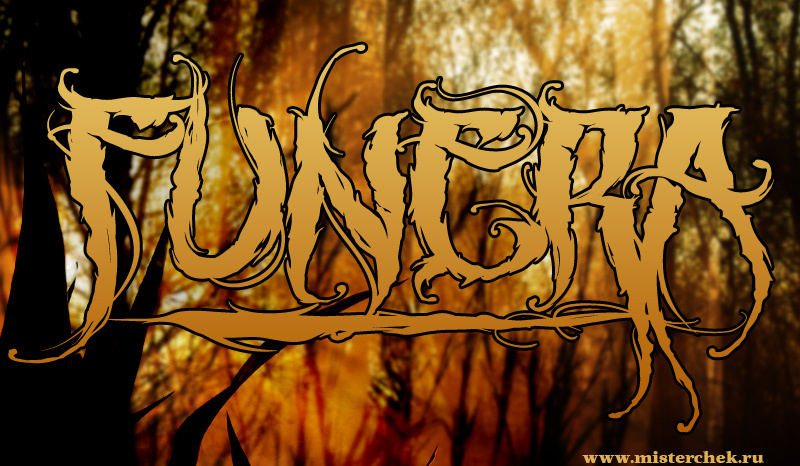
MCF Funera Flourish by Andrey Chernevich of Mister Chek is a free gothic calligraphy font built from sweeping, blade-like strokes. Its uneven letters mix dense masses with hairline curls and thorny flourishes.
It can turn a theatrical title into part lettering and part ornament, especially for horror posters and fantasy games. Album art and occult merchandise also suit its tangled, hand-drawn forms. It speaks most directly to audiences drawn to gothic music, dark fantasy, and macabre illustration.